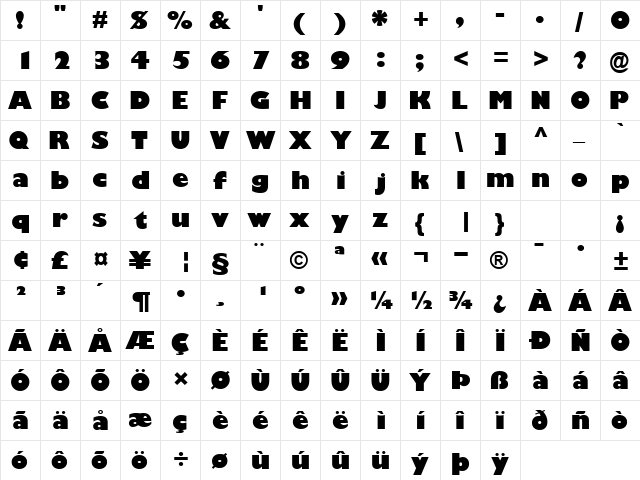
GimletBlackSSK Bold
Design Context for GimletBlackSSK Typeface
GimletBlackSSK is a composed and adaptable typeface that performs quietly and consistently across a wide range of design contexts. Its bold stroke weight gives it real presence on the page.